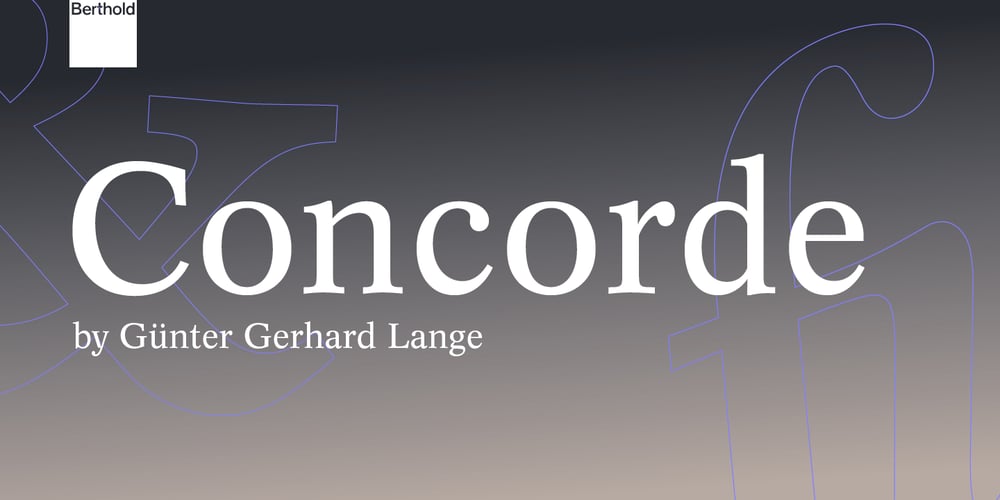
Concorde Font Family was designed by Günter Gerhard Lange and published by Berthold. Concorde contains 16 styles and family package options. Berthold first released Concorde in 1969. Günter Gerhard Lange designed this text face to meet the demands of today’s composing and printing technology. This contemporary design is a highly legible typeface well-suited for large bodies of text. It offers an excellent alternative to Times New Roman.